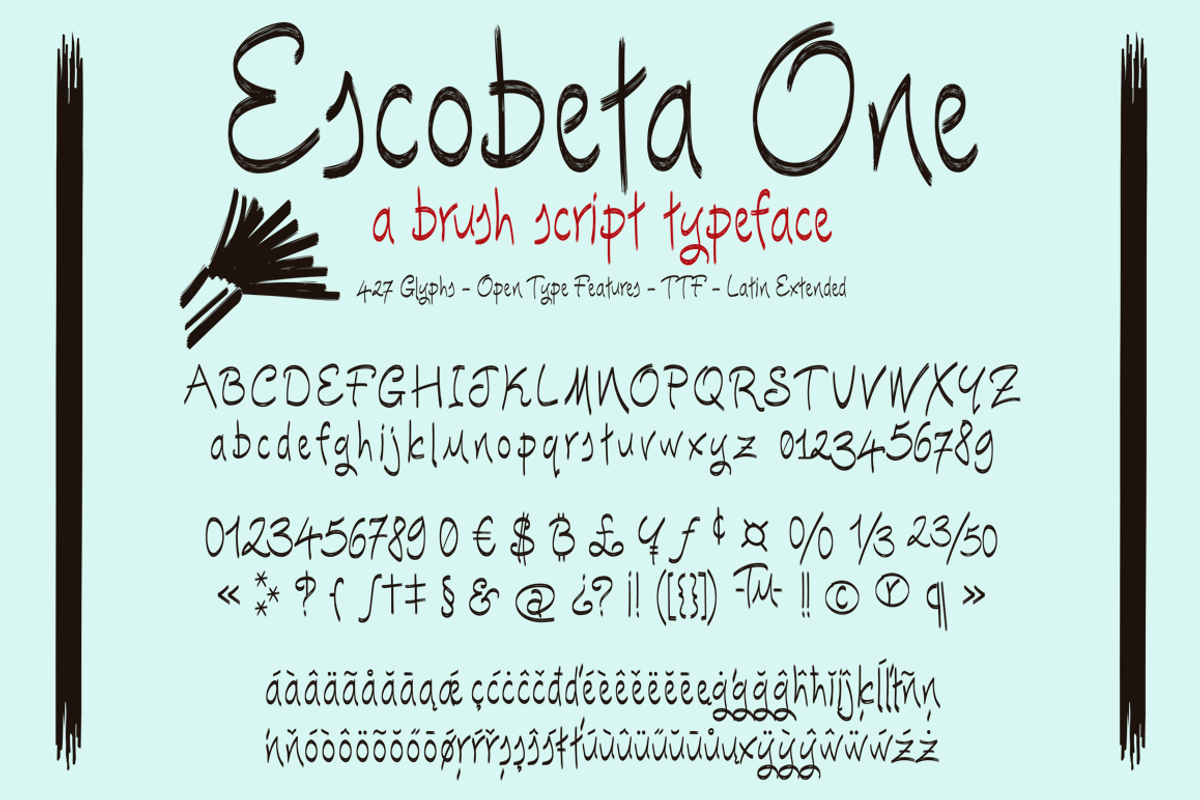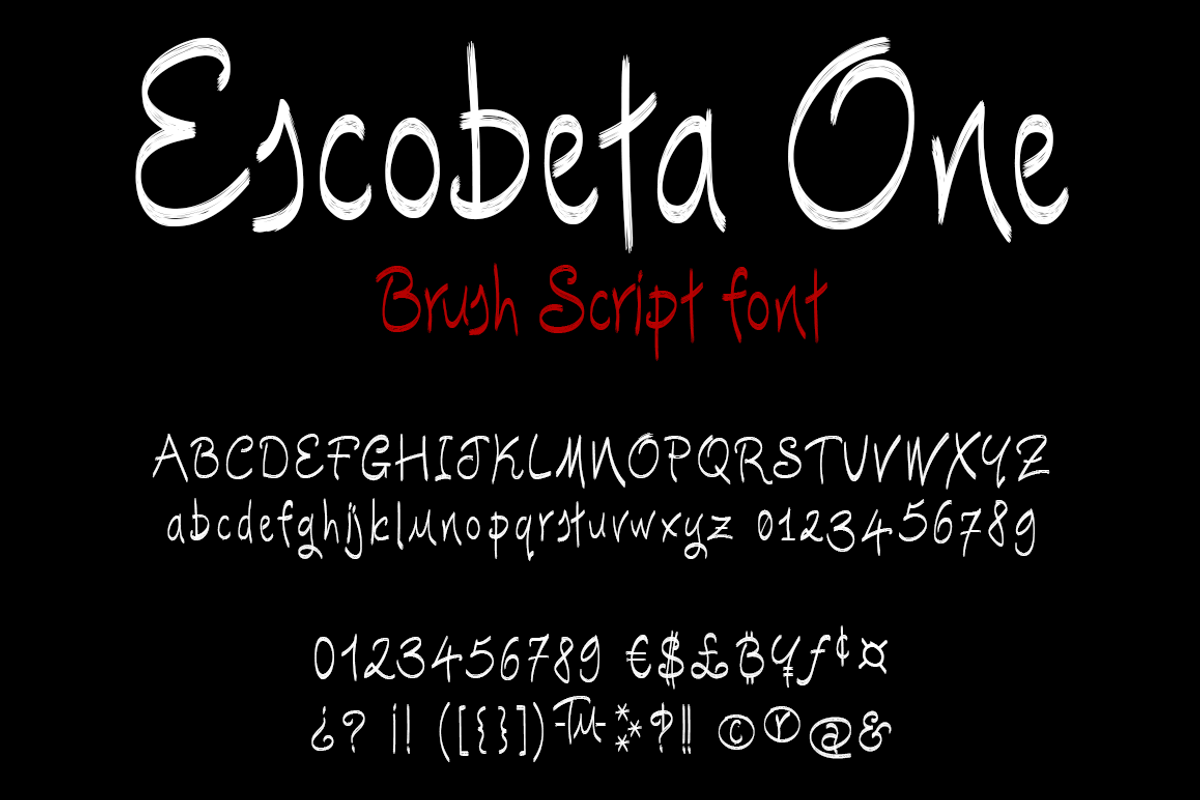
Escobeta One -Brush font-
Escobeta One -Brush font- by deFharo is a font selected for branding, posters, packaging, typography.
Why Escobeta One -Brush font- is worth a look
Escobeta One -Brush font- by deFharo fits naturally into Branding, posters, packaging, typography.